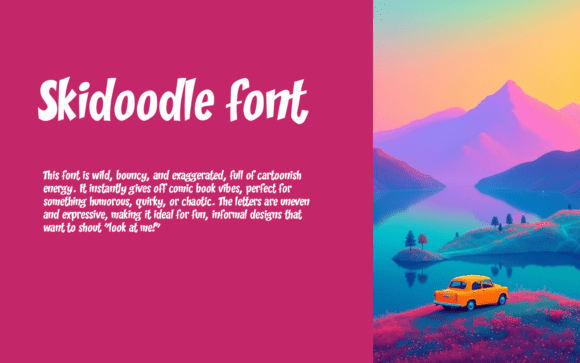
Introduction to Skidoodle Font
Who hasn’t been there – staring at a blank screen, struggling to find the perfect font to match the vibe of your design project? The cursor blinks, the deadline looms, and suddenly, the perfect font appears like a ray of sunshine in your creative darkness. For designers, that moment of pure joy is all too familiar. But what happens when you need a font that’s not just perfect, but explosive, playful, and downright fun? Enter the Skidoodle Font, a zany comic font that’s about to shake up your design game.
Whether you’re working on a kids’ media project, a Halloween-themed campaign, or just a design that needs a healthy dose of chaos, Skidoodle Font is your go-to resource. With its high-quality design and transparent background, this font is a free download waiting to unleash its full potential on your creative project.
Key Features of Skidoodle Font
- High-quality design resource with a unique, playful style, perfect for creative projects.
- Includes a transparent background option, allowing for seamless integration with any design.
- Supports a wide range of languages, making it a versatile choice for international design projects.
Honest Review: Skidoodle Font
As a designer, I’m always on the lookout for high-quality design resources to elevate my creative projects. Recently, I had the chance to try out the Skidoodle Font, and I’m excited to share my honest review with you.
Here are some things that worked well for me: ✨ The font is incredibly versatile, with a range of styles and weights that make it perfect for a variety of design applications. I loved the unique, hand-drawn feel of the font, which added a touch of personality to my project. The transparent background made it easy to use on a range of backgrounds, and the free download was a bonus!
- What I loved: Versatile, unique design, transparent background
- What I didn’t love: Limited character set, not suitable for complex text
While the Skidoodle Font is a great addition to any design resource collection, I did encounter a few limitations: ⚠️ The character set is limited, which made it difficult to use for complex text. Additionally, the font may not be suitable for projects that require a large amount of text.
Overall, I was impressed with the Skidoodle Font and would definitely recommend it to designers looking for a unique and high-quality design resource. With a little creativity, I was able to work around the limitations and achieve some amazing results.
To get the most out of Skidoodle Font, use it on a high-quality design resource with a transparent background to give your creative project a professional look. You can also use it in combination with other design elements to create a unique and eye-catching design.
Skidoodle Font is commonly used in creative projects such as logos, social media graphics, and presentations. It’s also a popular choice for designers who want a free, high-quality font with a transparent background.